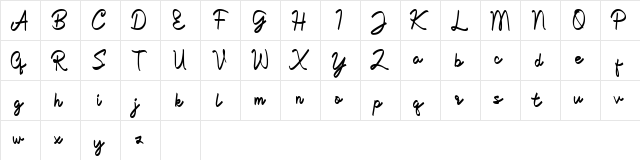
Pharmacology Regular Font Preview
Pharmacology Regular
Pharmacology Regular Font Details
| Designer | Aptfahmi - Fahmi sadik - Ternate |
Design Context for Pharmacology Typeface
Pharmacology is a composed and adaptable typeface that performs quietly and consistently across a wide range of design contexts.